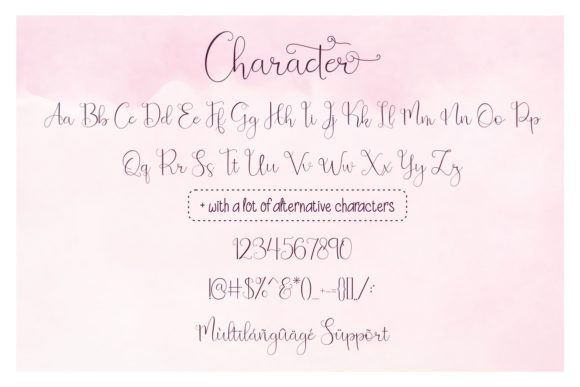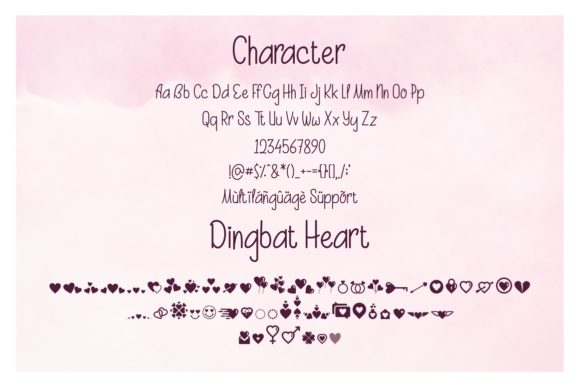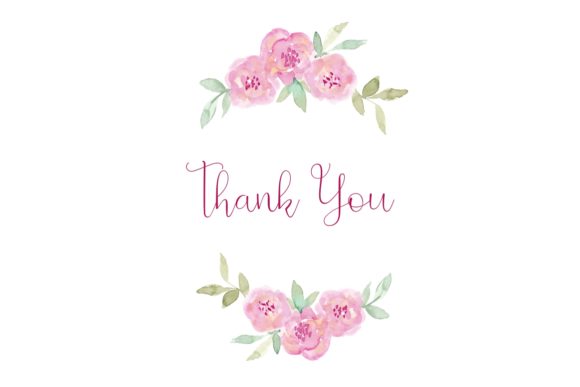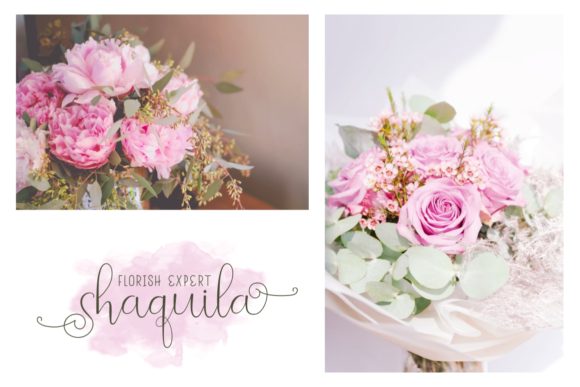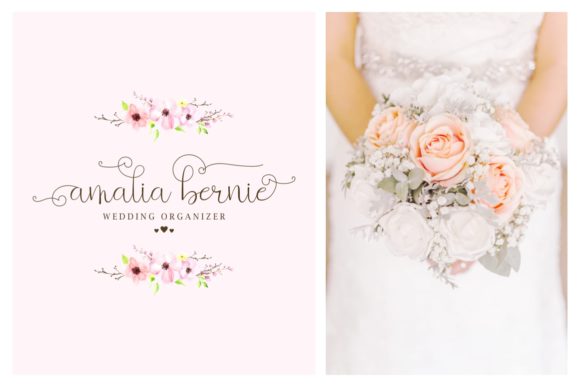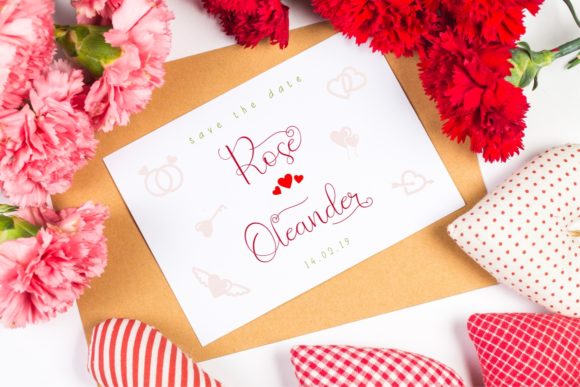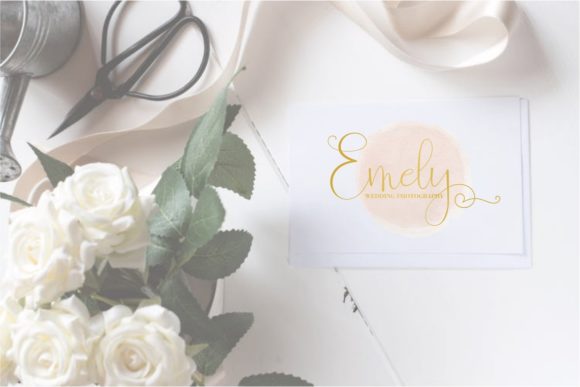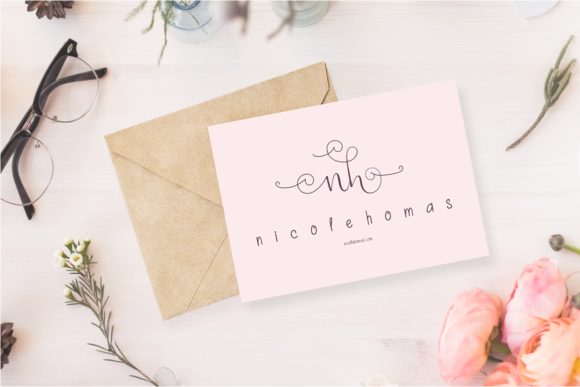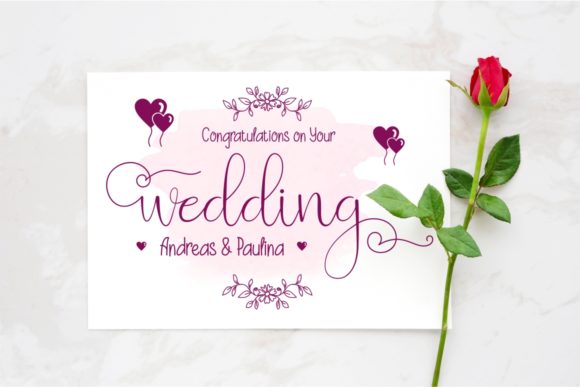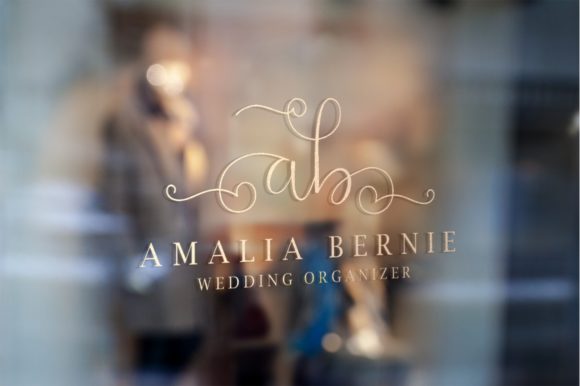
Beauty and Love Duo Font
About Beauty and Love Duo Font
The Beauty and Love is an elegant font duo. It comes in three styles; script, sans, and dingbat. The script version is a modern and feminine script full of love. The sans version is a cute typeface with a playful and fun touch, and the dingbat version includes 52 beautiful heart symbols in various styles.
Each version works together perfectly to help you create the perfect design. It’s perfect for branding, letterheads, wedding invitations, quotes, prints, cards and so much more!.